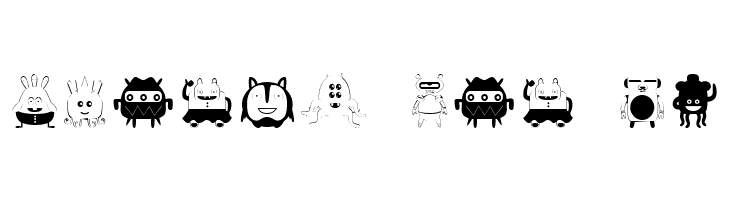
A playful and whimsical font with quirky, decorative letterforms.
A whimsical font with characters on tilted notepads, featuring a playful and casual style.
A playful font with bold letters inside turtle silhouettes, perfect for creative projects.
A playful, decorative font with letters emerging from jack-in-the-box toys.
A decorative font made up of quirky cartoon monsters and robots.
( Fonts by Khrys Bosland )
A bold, playful font with a three-dimensional shadow effect.
A playful, handwritten font with a quirky and dynamic style.
( Fonts by Des Gomez )
A playful, handwritten font with a casual and informal style.